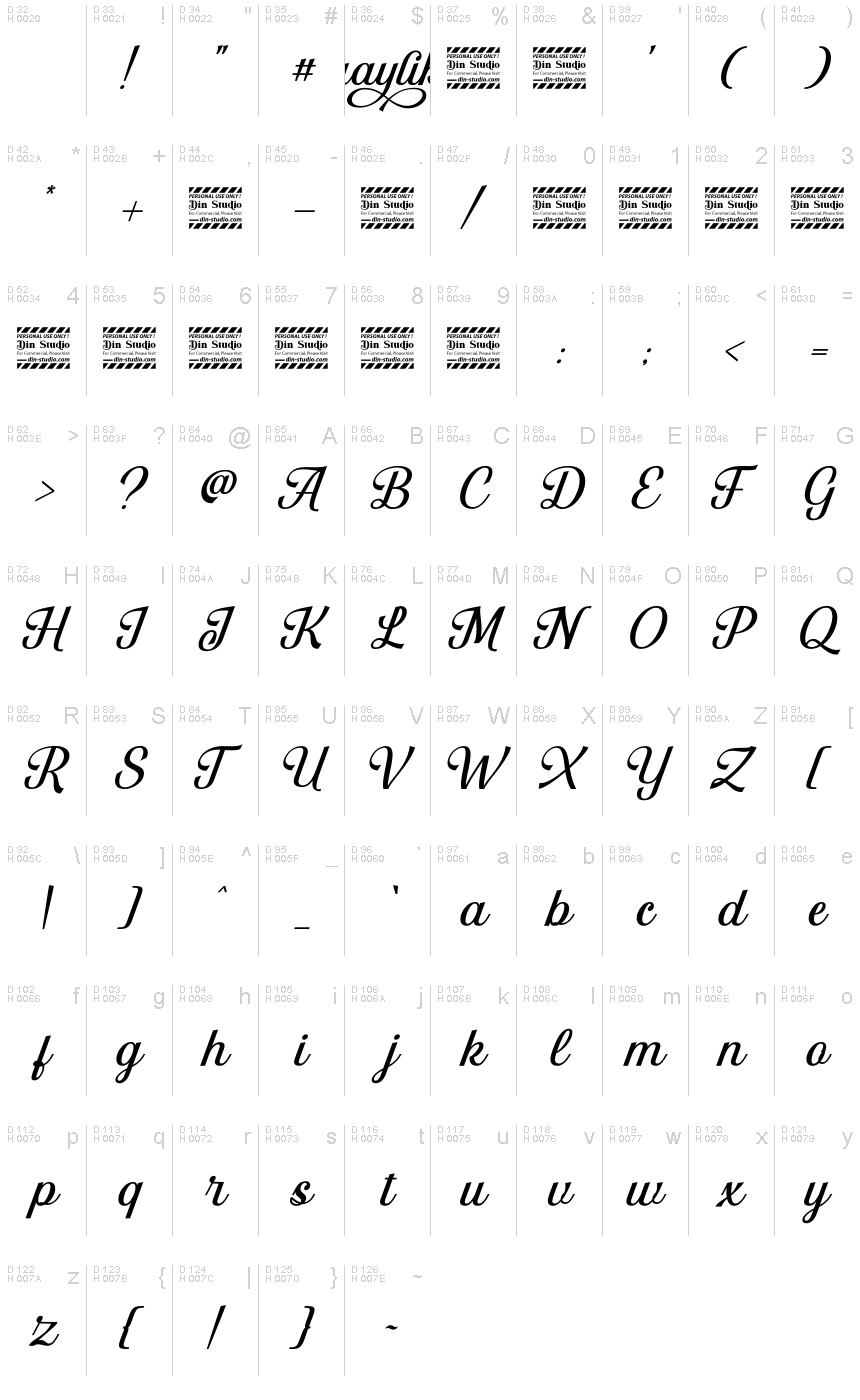
Quaylike, a captivating calligraphic font crafted by Din Studio, exudes a delightful blend of luxury and elegance. With its big, quirky letters and a retro-inspired aesthetic, this handwritten typeface captivates the eye and evokes a sense of whimsy. The font's unique character and charming personality make it an excellent choice for prominent branding elements, attention-grabbing headlines, and large-scale text applications.
Quaylike's versatility shines through its ability to effortlessly adapt to a variety of design contexts. Whether adorning the pages of a high-end magazine, gracing the packaging of a premium product, or bringing a touch of sophistication to a website's hero section, this font's captivating aesthetic and easy-on-the-eyes legibility make it a standout choice for designers seeking to create a lasting impression.